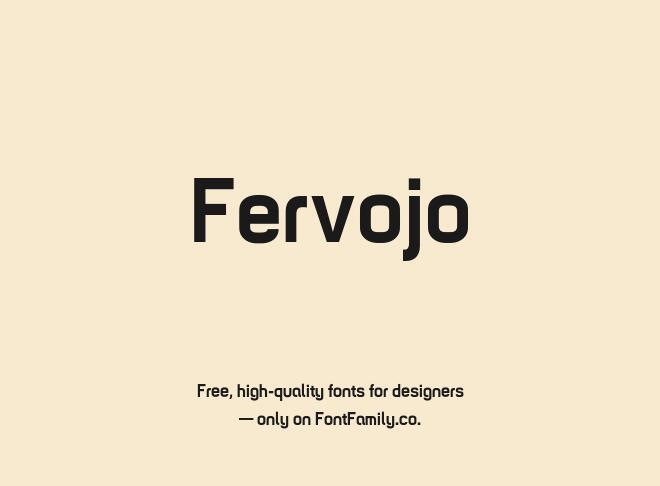
Fervojo Font
The Fervojo Font, designed by Creative Type Foundry, is a modern and geometric typeface that offers a distinctive and contemporary appeal. Released in 2019, it's perfect for designers aiming to bring a fresh and innovative touch to their projects. With its clean lines and precise geometry, Fervojo Font is a stand-out choice for display purposes. It's reminiscent of the popular sans serif fonts but introduces its own unique flair. The font shines in digital designs, logos, headlines, banners, and posters. Its free personal use license makes it a cost-effective choice for designers looking to experiment with a new style. The Fervojo Font is a testament to the idea that simplicity is the ultimate sophistication, making it a must-have in every designer's toolkit.